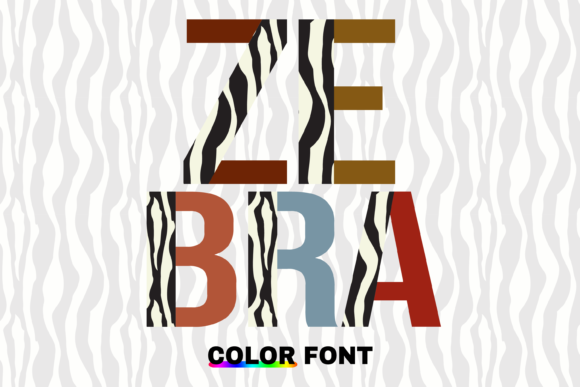
Unleash your creativity with Zebra Font, an enchanting duo-style color font designed to captivate and inspire. Our Zebra Font breathes life into your artistic visions, adding a unique charm to your crafts, designs, and creations. Each character dances with vibrant colors, ready to transform your projects into masterpieces.
Step into a world of color and let your imagination run wild. Zebra Font offers an extraordinary blend of black and color, seamlessly complementing each other to create captivating visuals. Whether you're designing personalized cards, creating delightful home décor, or crafting eye-catching social media posts, Zebra Font will add a touch of magic to every project.
Transform your designs into captivating works of art with Zebra Font. Its exquisite combination of black and color will elevate your projects to new heights, leaving a lasting impression on your audience. Let Zebra Font ignite your creativity and capture the attention of all who see your creations.
This is not just a font; it's an invitation to explore a vibrant world of colors and let your imagination soar. Zebra Font is more than just a tool; it's an expression of your unique style and creativity. Embrace the joy of creation and let Zebra Font guide you on your artistic journey.